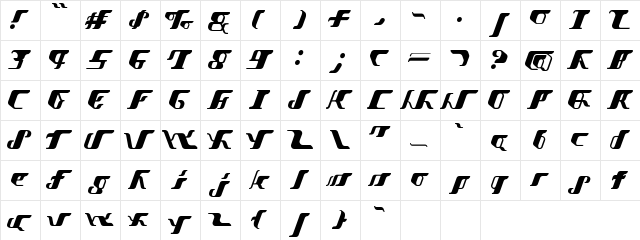
Vitesse SemiBold Regular
Design Context for Vitesse SemiBold Typeface
Vitesse SemiBold is a composed and adaptable typeface that performs quietly and consistently across a wide range of design contexts. The heavy weight commands attention and anchors typographic hierarchies.